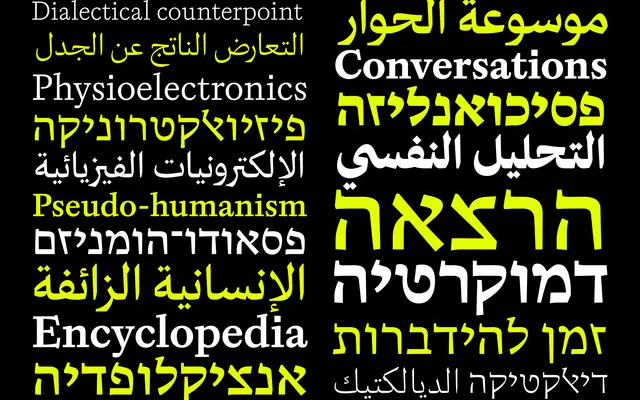
Dialogue ME
Zetafonts · Cosimo Lorenzo Pancini, Andrea Tartarelli, Oded Ezer, Murad Alshawareb · 2025
A multi-script typeface spanning Latin, Arabic Naskh and Hebrew, reconciling calligraphic tradition with a post-digital brutalist approach across seven weights.
Designed by Cosimo Lorenzo Pancini and Andrea Tartarelli with Oded Ezer on Hebrew glyphs and Murad Alshawareb as Arabic consultant, Dialogue ME extends the original Latin Dialogue typeface into a genuinely trilingual family covering 197 languages. Latin forms trace back to Venetian garalde proportions, Arabic follows Naskh calligraphy, and Hebrew draws on mid-20th-century models including Henry Friedländer's Shalom and Aviv. Sharp angles and pixel-perfect counterspaces unify the three scripts, while lighter weights absorb slab and monospaced characteristics that aid readability at small sizes.
Rooted in garalde proportions derived from Venetian punchcutters, Dialogue ME merges traditional calligraphic contrast with post-digital brutalist detailing across Latin, Arabic Naskh and Hebrew scripts, with slab and monospaced influences appearing at lighter weights.